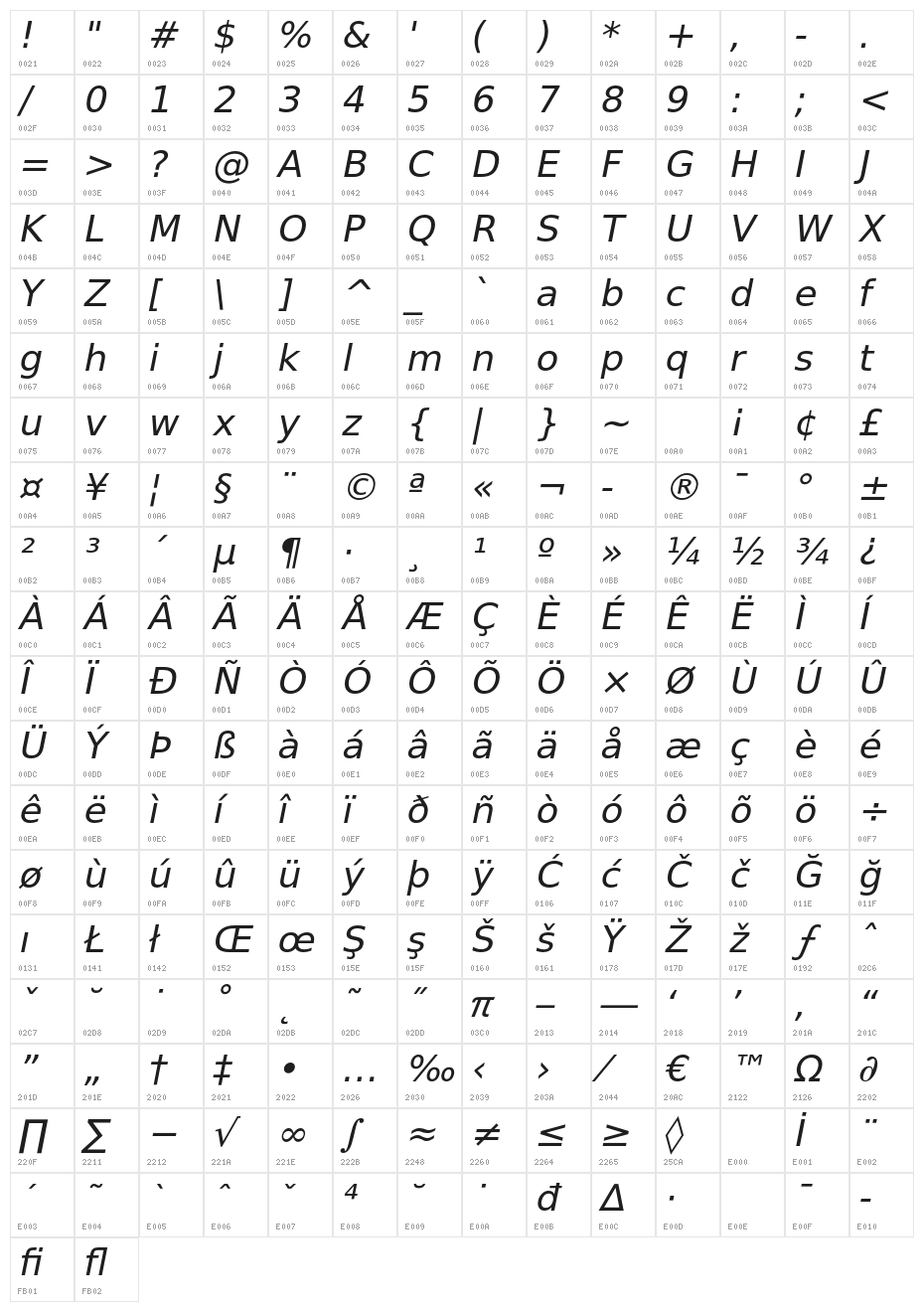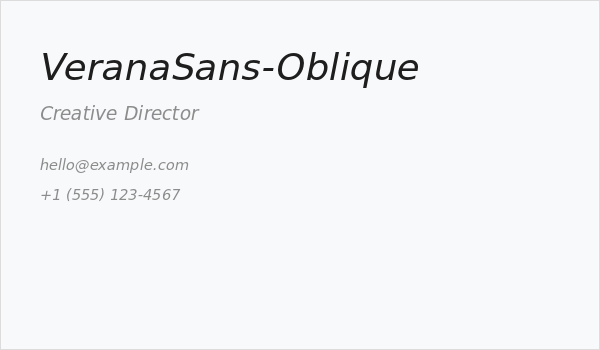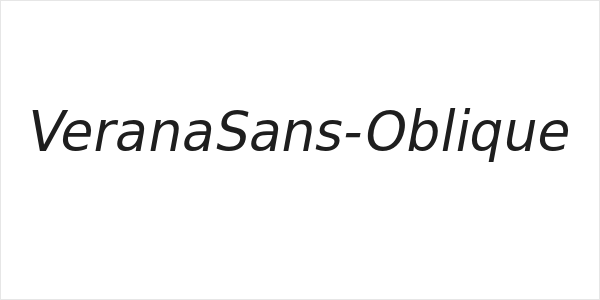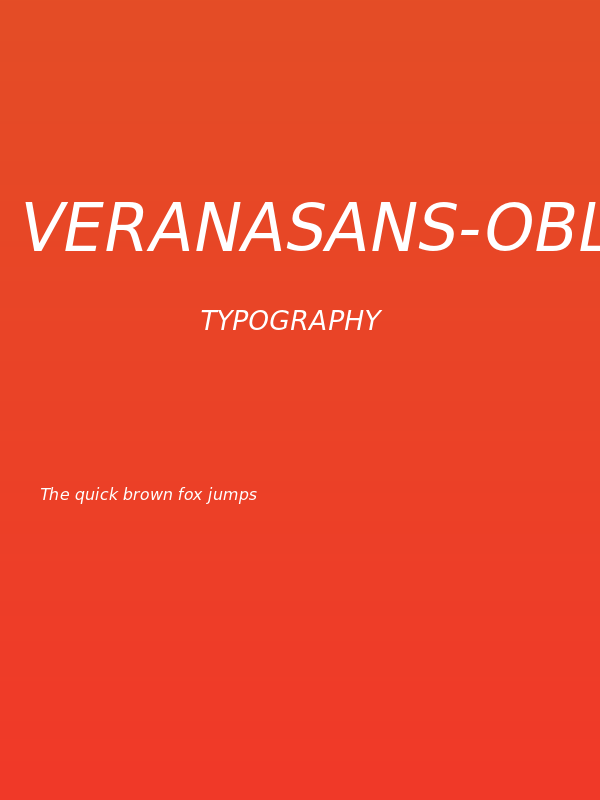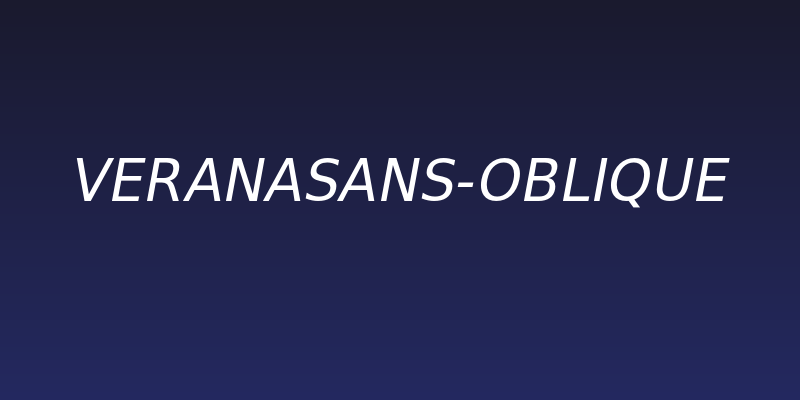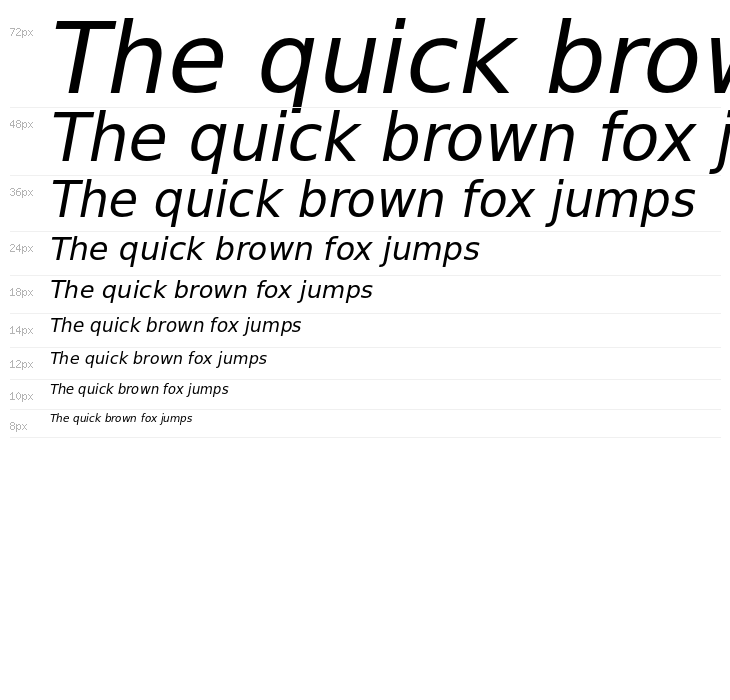
VeranaSans-Oblique Font
VeranaSans-Oblique Description
This font features a clean and modern sans-serif style with an oblique slant, giving it a dynamic and forward-leaning appearance. The characters are well-proportioned with a consistent stroke width, providing a uniform and harmonious look. The uppercase letters are bold and assertive, while the lowercase letters maintain a friendly and approachable feel. The numerals are clear and easily distinguishable, making them suitable for various applications. Special characters are included, enhancing the font's versatility. Overall, this font is designed for readability and impact, making it ideal for both digital and print media.
| Proposed Projects | Ideal for branding, advertising, web design, and editorial layouts. |